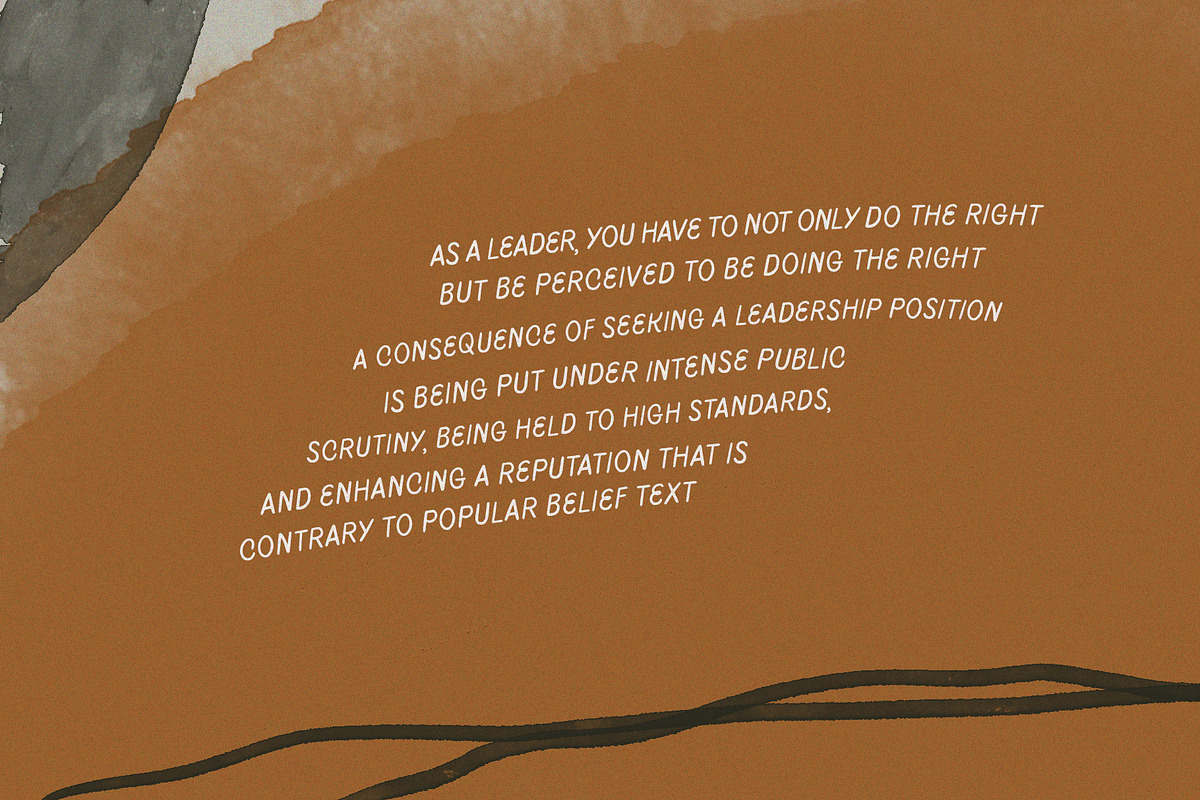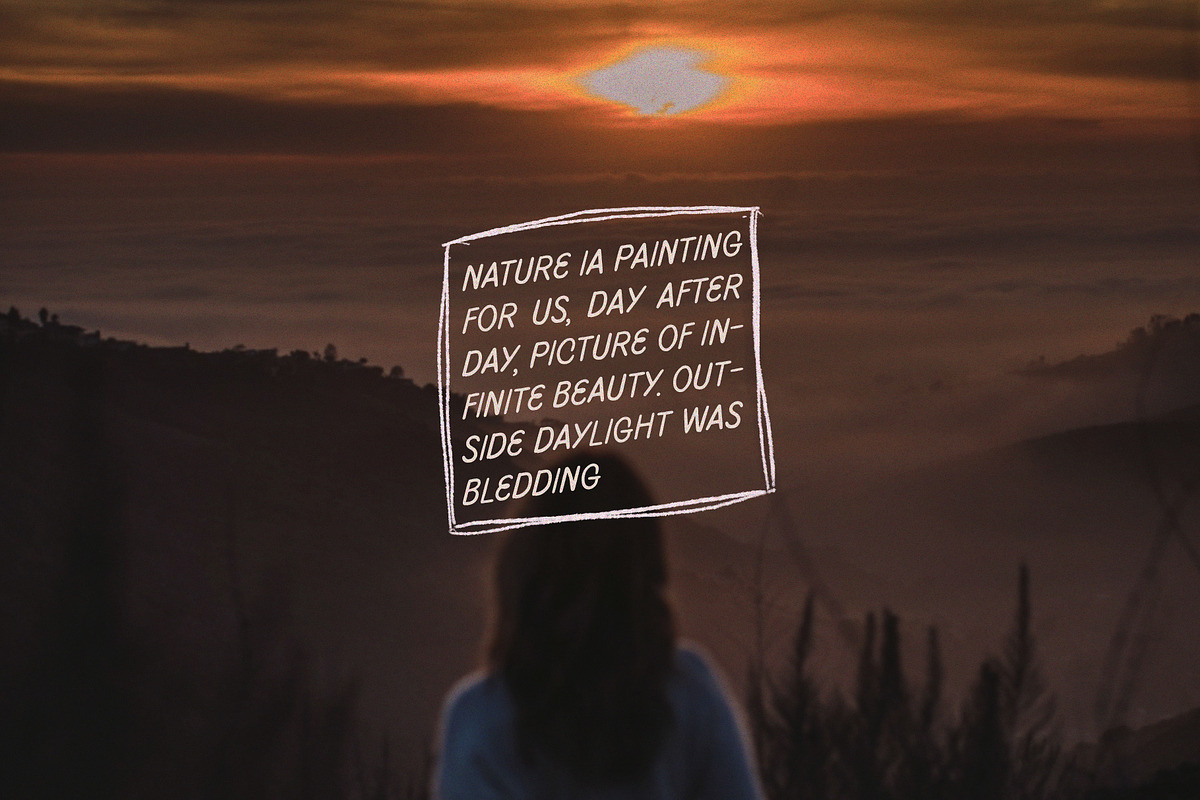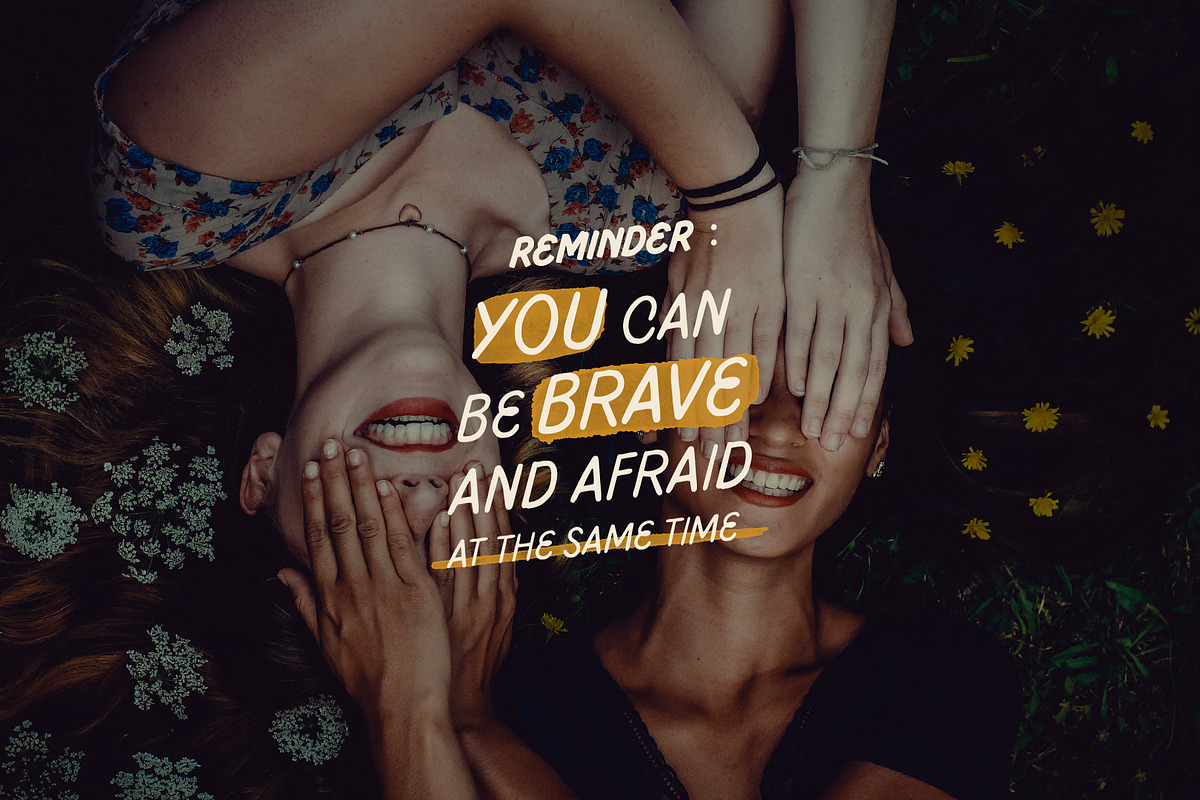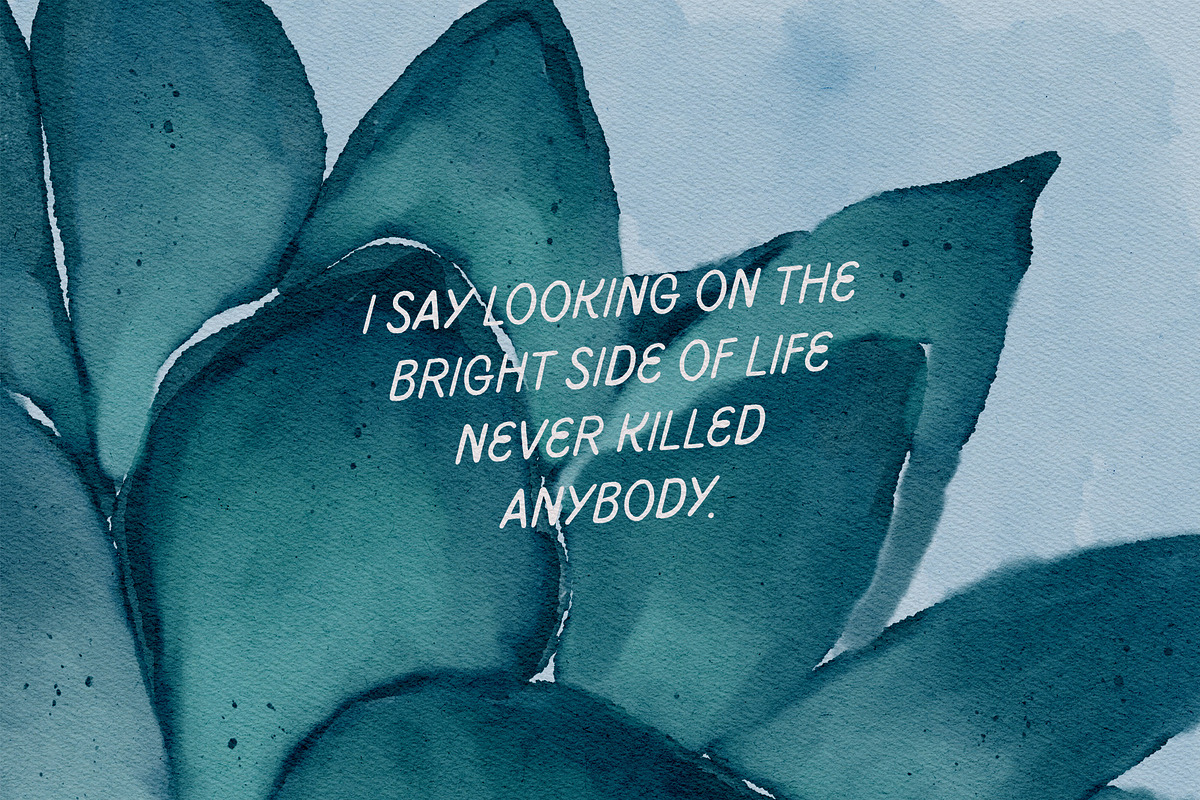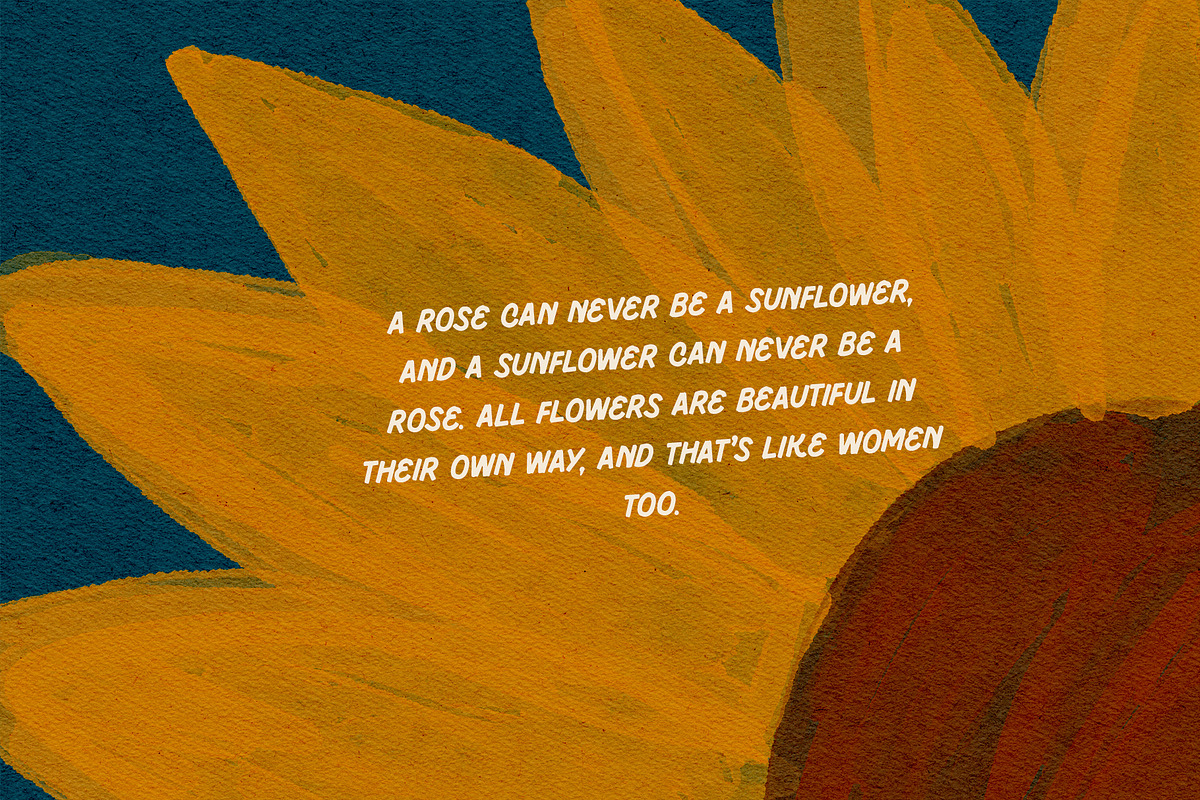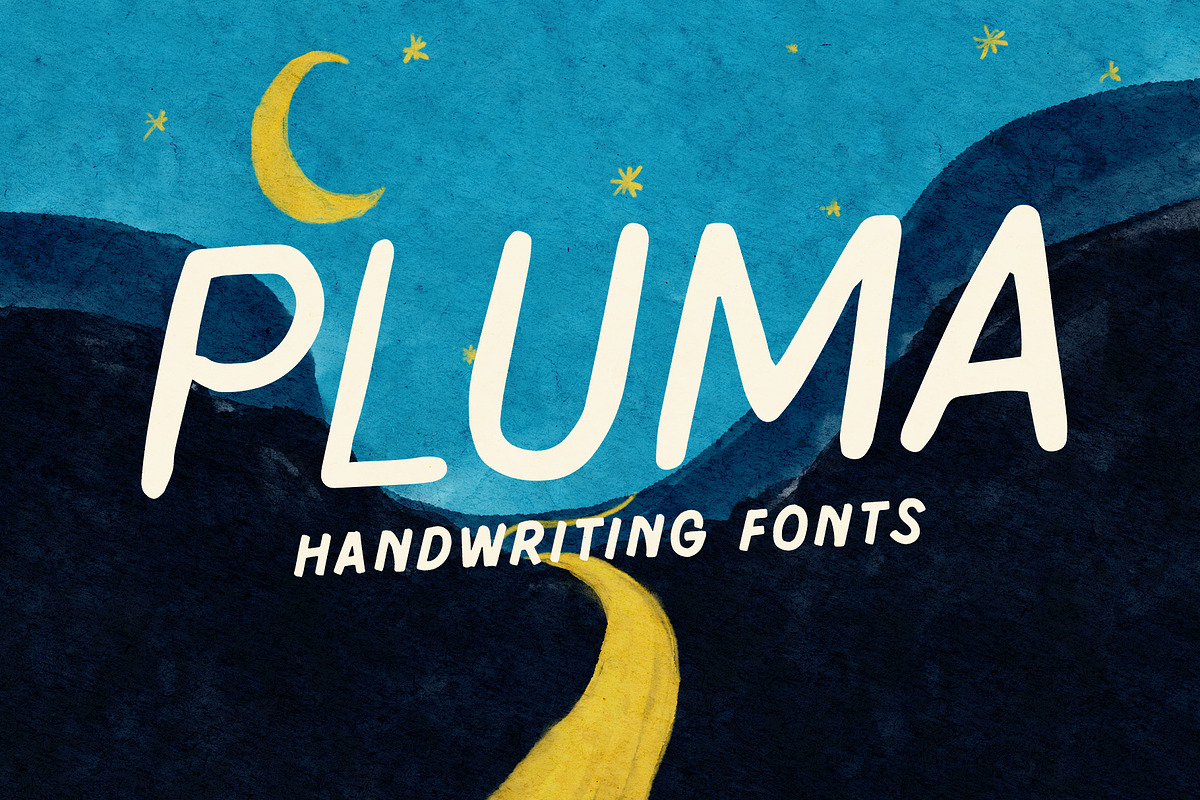
Pluma Handwriting
Pluma Handwriting hand painted typeface designed to help you create the look of stunning custom hand-lettering. Pluma Handwriting comes with upper and lowercase characters, punctuation, numerals,supports international languages
Pluma Handwriting is very best choice fonts for : ,quotes, Posters, Logos, Print Ads, Digital Ads, Promotion Product, video bumper, etc.